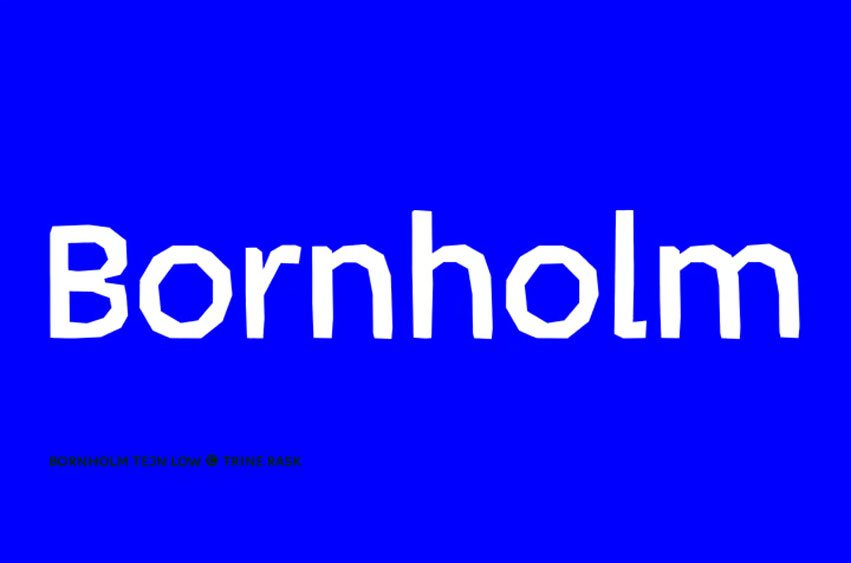
Bornholm Font
Bornholm Font Tejn is named after a village Tejn on the only rocky island in Denmark Bornholm Tejn Low is the lowercase variant of Bornholm Tejn, released in 2012, the first face in a series of rough stone cut typefaces, that shares proportions, but differs in any other aspect like different pieces of rock. It is a powerful face, but still very friendly.
Good for very big sizes, but can be used for small texts, movie titles, cartoons … Bornholm Tejn Low has a large x-height which supports the heavy and black look of the typeface. It contains tabular and proportional old style and lining figures.